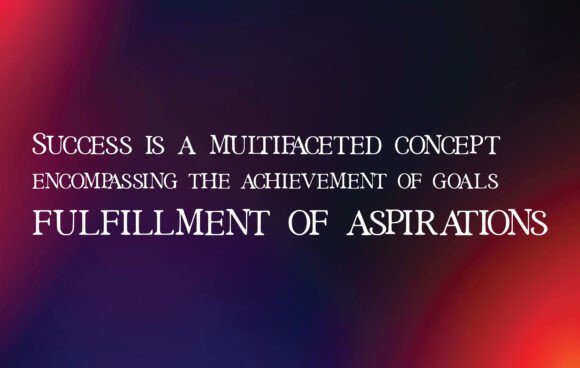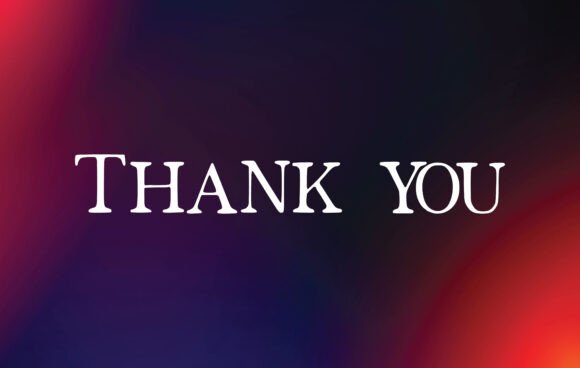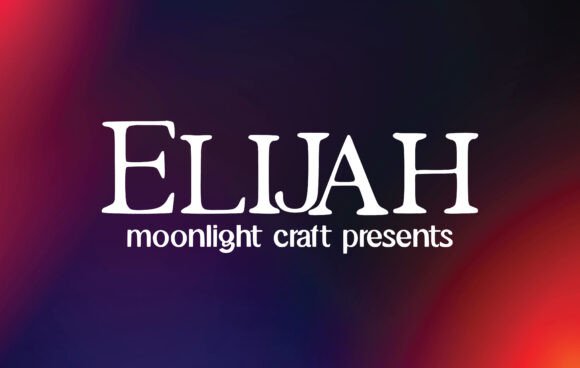
Elijah Font: Elevate Your Creative Projects with Elegance and Sophistication
In the world of typography, fonts play a crucial role in bringing creative ideas to life. For designers, crafters, and artists, finding the perfect font can be a daunting task. However, if you’re looking for a font that can elevate your projects to new heights, look no further than the Elijah Font. This lovely and beautiful font is designed to help you create stunning visual content that captures the attention of your audience.
The Power of Elijah Font
Elijah Font is a versatile and elegant font that can take your creative ideas to the highest level. Its unique design and flowing curves make it perfect for creating eye-catching logos, branding, and quotes. Whether you’re working on a personal project or a client’s, this font is sure to impress. With Elijah Font, you can add a touch of sophistication and elegance to your designs, making them stand out from the crowd.
Why Choose Elijah Font?
So, what makes Elijah Font the best choice for designers and crafters? Here are just a few reasons why:
- Unique Design: Elijah Font boasts a distinctive design that sets it apart from other fonts. Its elegant curves and flowing lines make it perfect for creating visually appealing content.
- Versatility: This font is incredibly versatile, making it suitable for a wide range of projects, from logos and branding to quotes and social media graphics.
- Ease of Use: Elijah Font is easy to use and works seamlessly with popular design software, making it a great addition to your font library.
- High-Quality: This font is designed with high-quality in mind, ensuring that your projects look professional and polished.
Elijah Font is a dream come true for designers and crafters. Whether you’re creating:
- Logos: Use Elijah Font to create stunning logos that capture the essence of your brand.
- Branding Materials: From business cards to brochures, this font is perfect for creating cohesive branding materials.
- Quotes and Social Media Graphics: Add a touch of elegance to your quotes and social media graphics with Elijah Font.
- Art and Illustration: Use this font to add text to your artwork, illustrations, and mixed media projects.
Tips for Using Elijah Font
To get the most out of Elijah Font, here are a few tips:
- Experiment with Sizes: Play around with different font sizes to create visual interest and hierarchy in your designs.
- Pair with Other Fonts: Combine Elijah Font with other fonts to create a unique and eye-catching typography combination.
- Use in Combination with Images: Pair Elijah Font with high-quality images to create stunning visual content.
In conclusion, Elijah Font is a beautiful and elegant font that can elevate your creative projects to new heights. Its unique design, versatility, and ease of use make it a must-have for designers and crafters. Whether you’re creating logos, branding materials, quotes, or social media graphics, this font is sure to impress. So why wait? Add Elijah Font to your font library today and take your creative ideas to the next level!